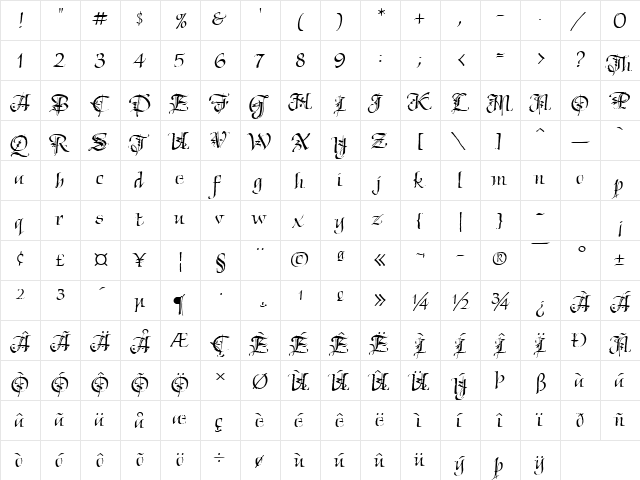
Chivalry Decorative ITCTT Regular
| Foundry | International Typeface Corporation |
| Designer | Rob Leuschke |
Design Context for Chivalry Decorative ITCTT Typeface
Chivalry Decorative ITCTT is built around its visual character rather than neutral utility — its distinctive forms are designed to make an impression at display sizes.